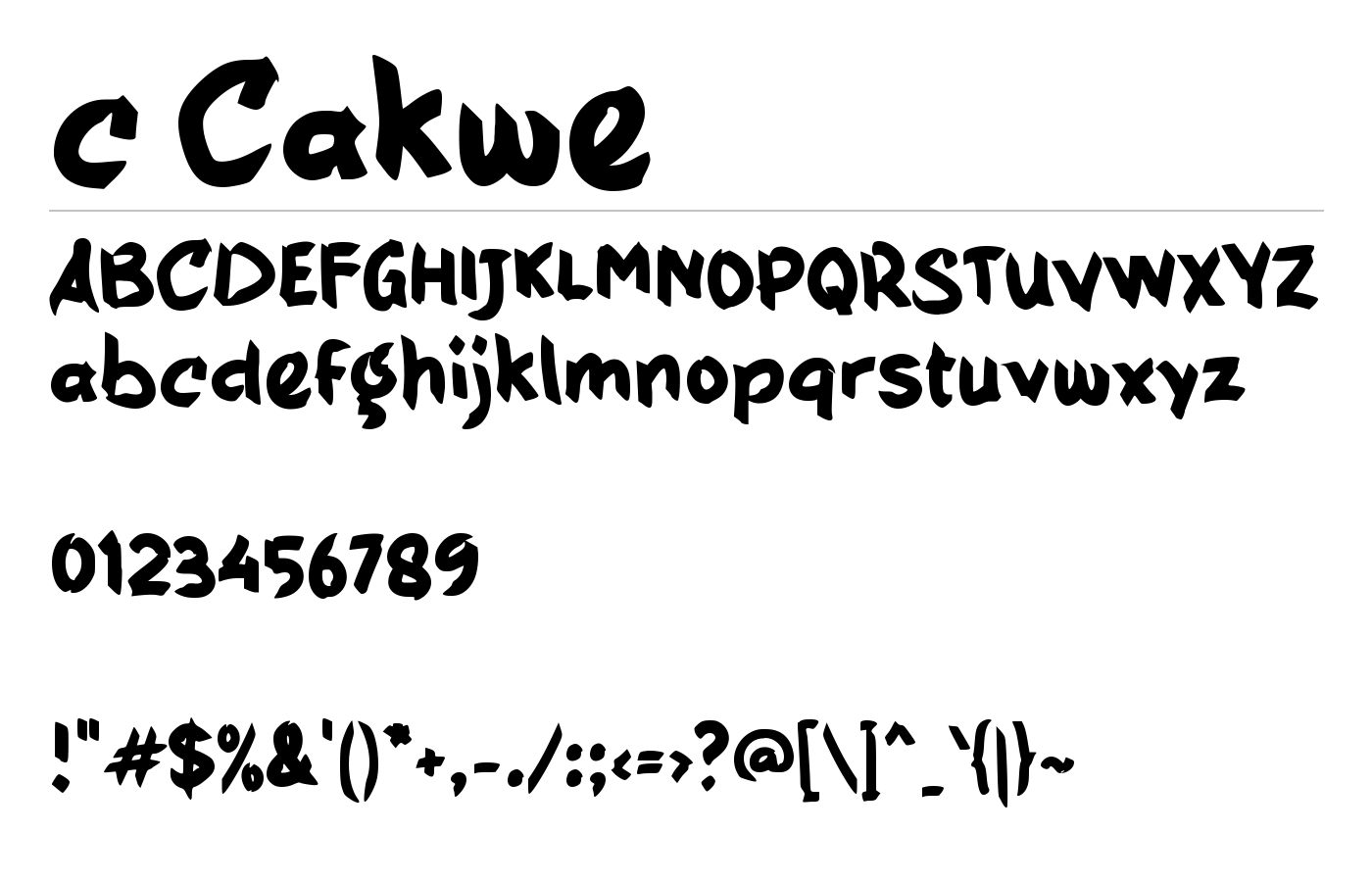
Cakwe is a bold, playful handwritten font with a strong personality and irregular shapes that give it an energetic and casual feel. Its thick strokes, quirky letterforms, and lively curves make it ideal for creative projects, children’s designs, or anything needing a fun and approachable vibe. This font works great in headings, logos, posters, or branding that aims to stand out with a unique, informal touch.
c Cakwe Font
About c Cakwe Font